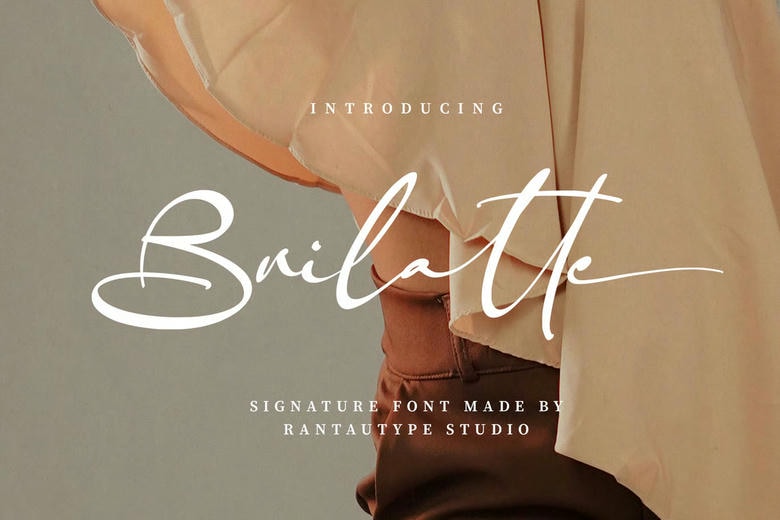
Brilatte Font
Brilatte is a natural signature font captures the effortless beauty of handwritten script with organic flow and gentle curves. Brilatte is a perfectly choice for any creative endeavor, creating, modern, lifestyle design such as logotype, title, cover, branding, invitations, wedding designs, display and magazine, social media posts, advertisements, printed quotes, product packaging, corporate brand, product designs, labels, photography, watermarks, special events and any other project with handwritten feel.
Brilatte Signature Script Font